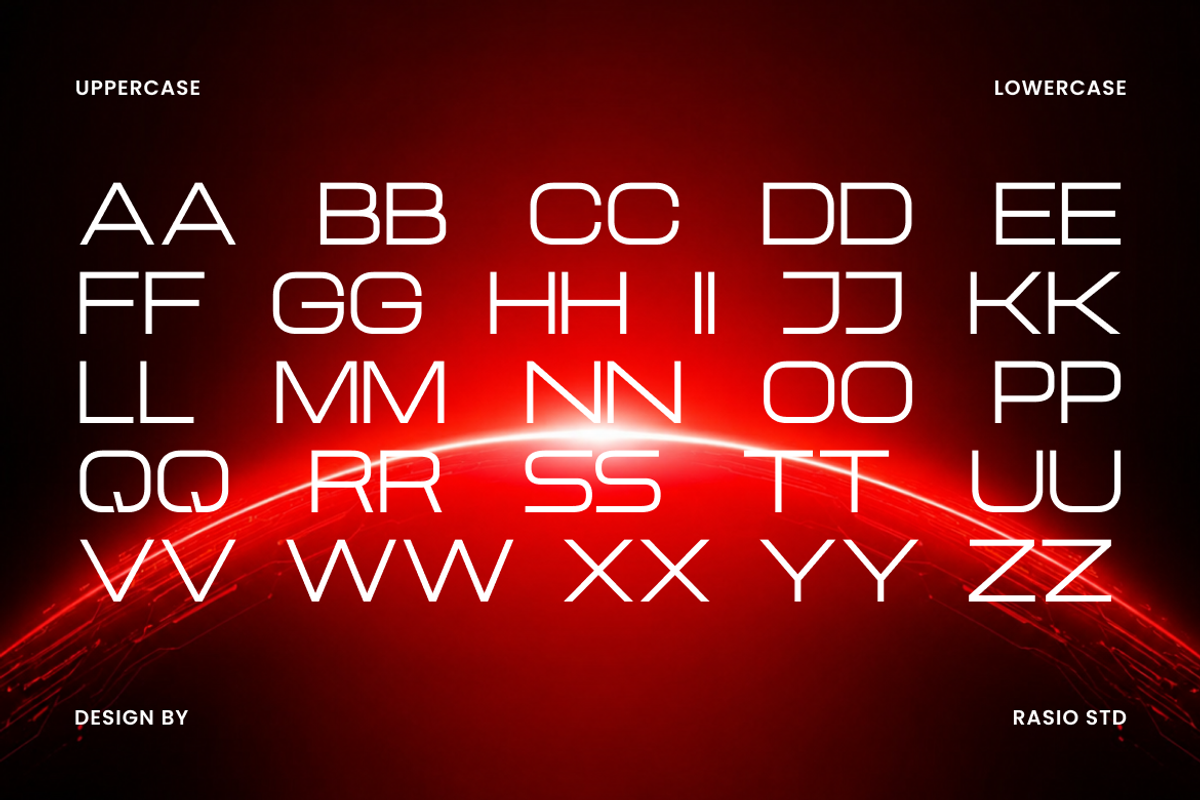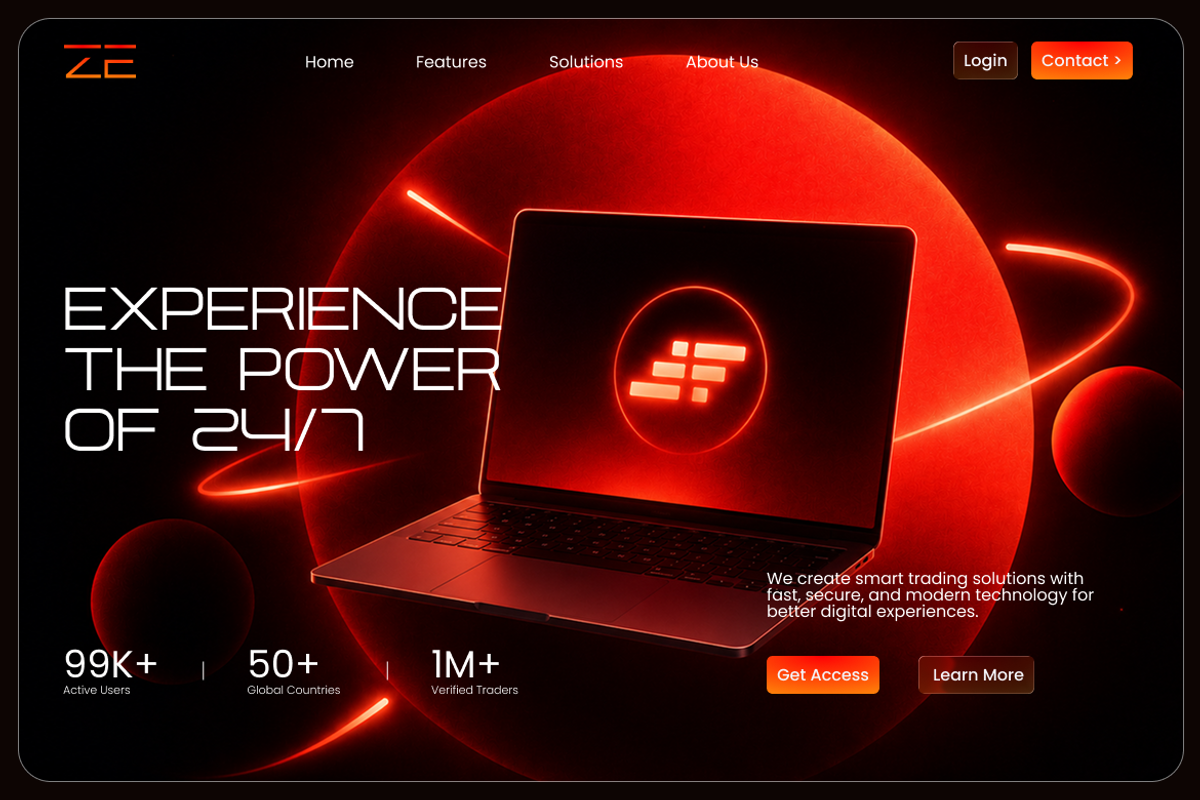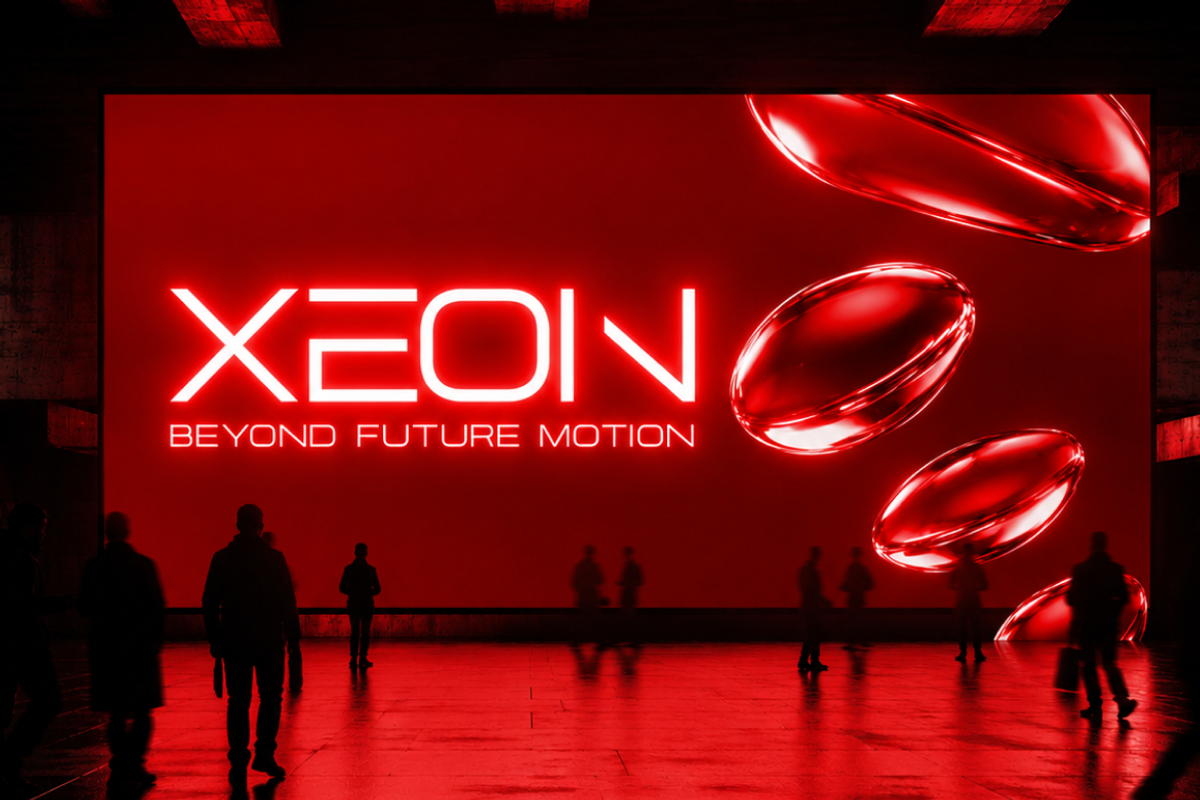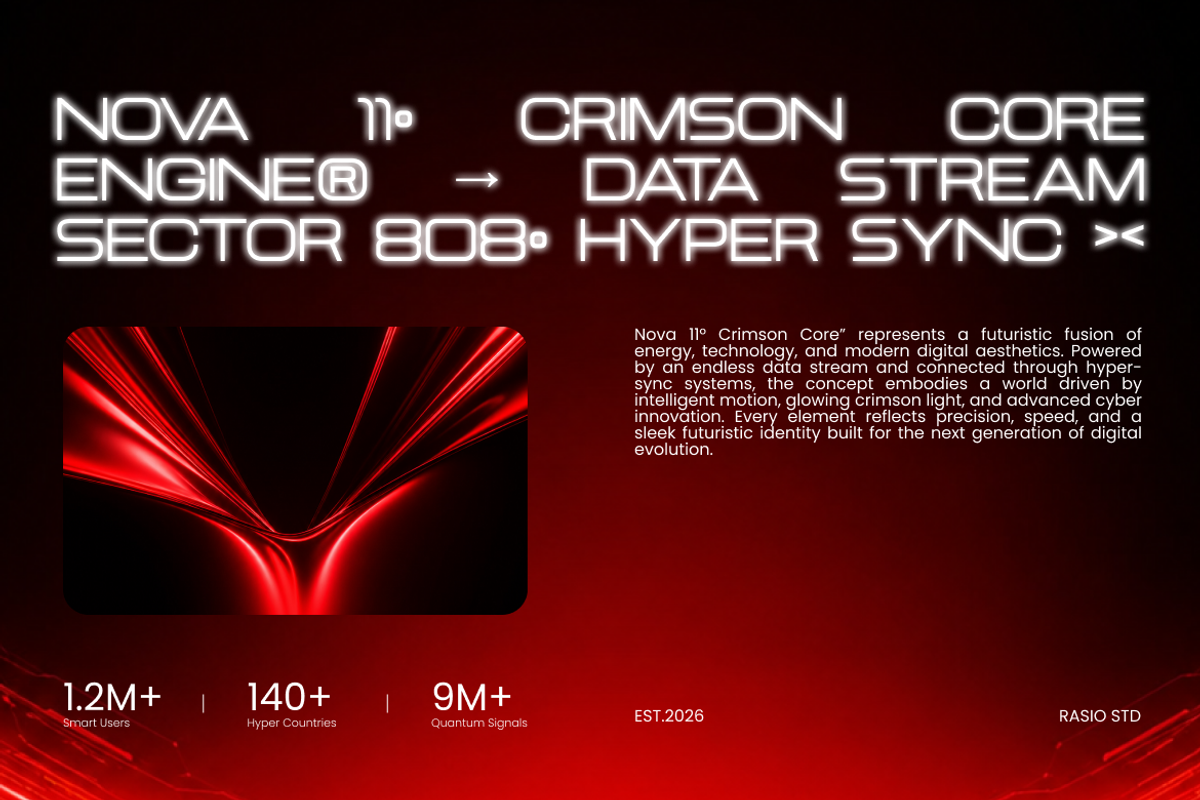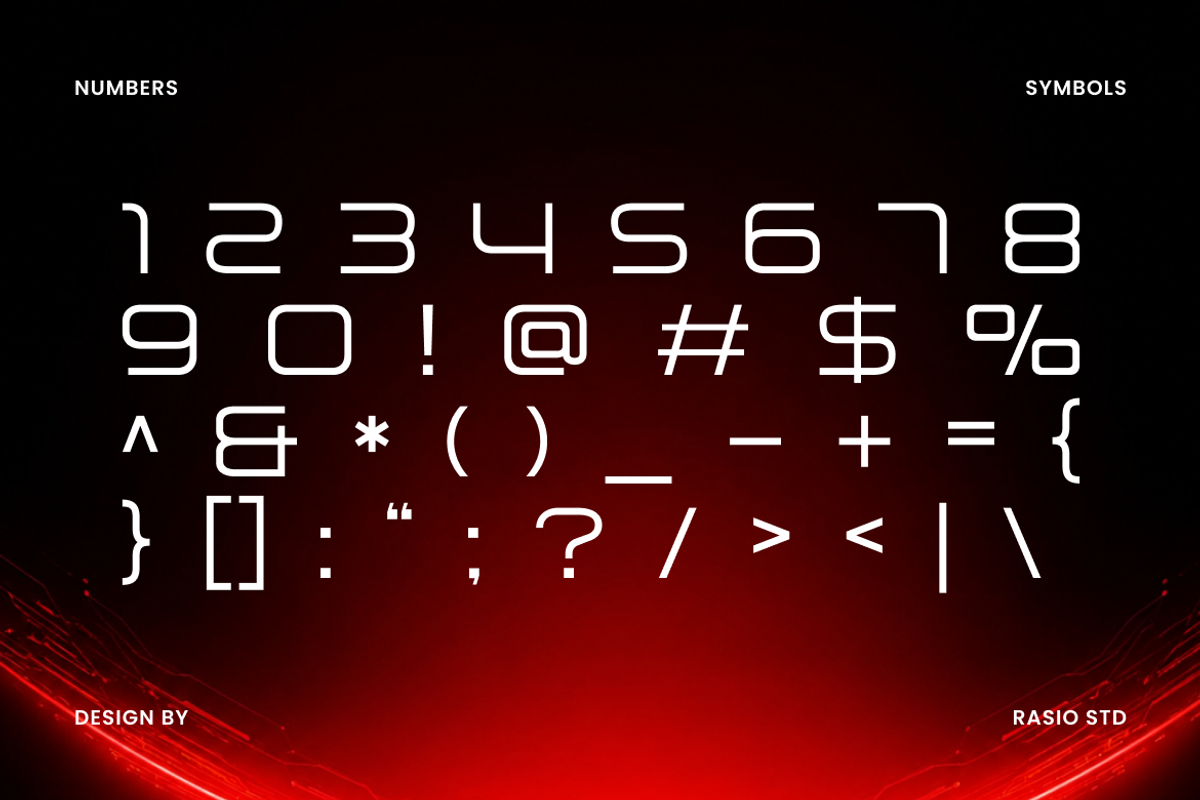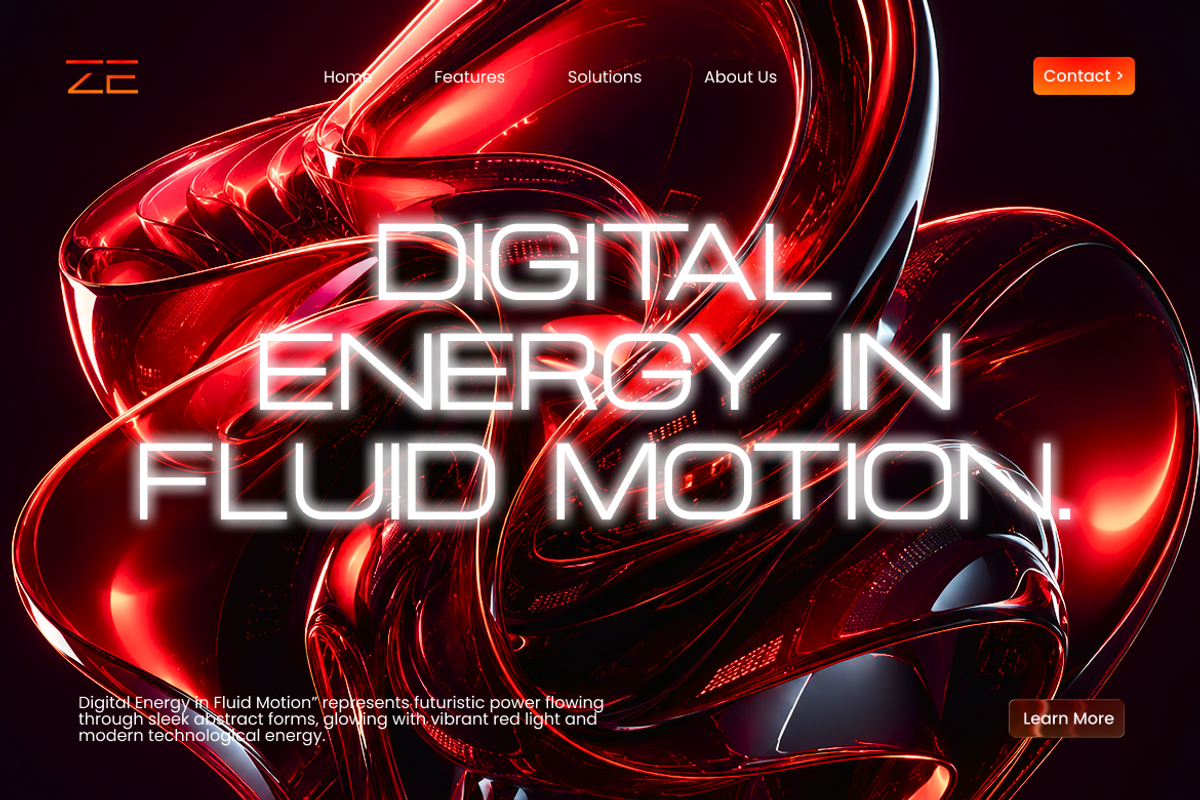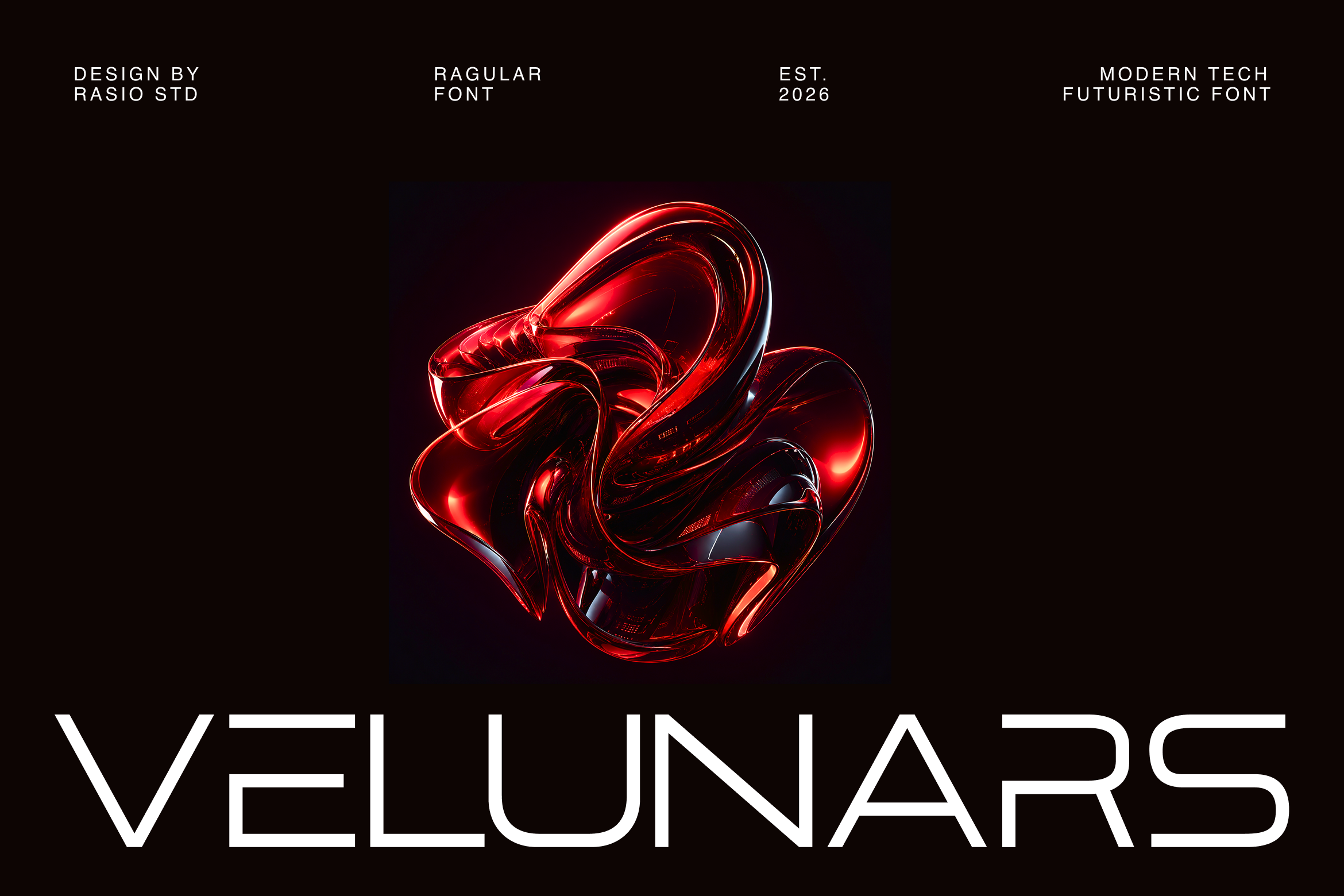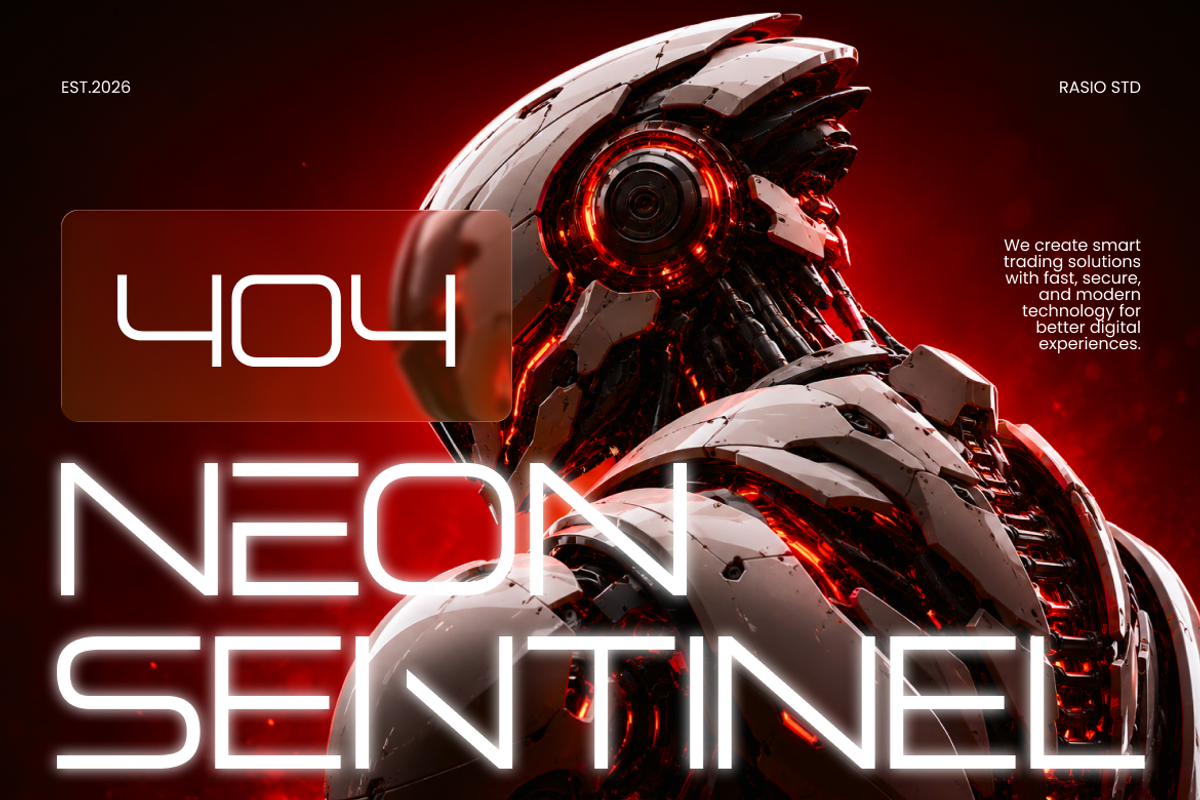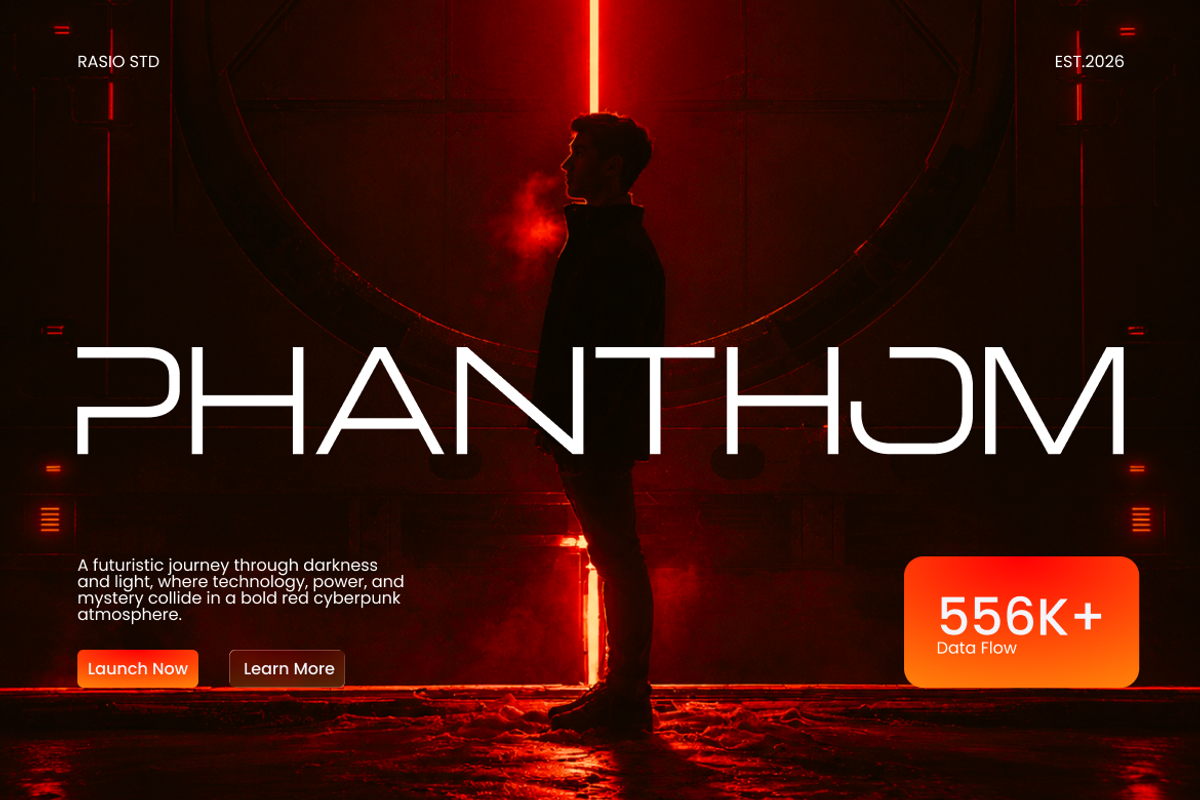
Velunars Modern Tech Futuristic Font
Velunars is a modern futuristic display font with sleek geometric construction, thin line proportions, and clean cyber-inspired curves. The typeface delivers a high-tech visual identity with minimalist sci-fi aesthetics, making it stand out in futuristic branding, gaming visuals, digital interfaces, and technology-inspired layouts. This font package includes uppercase and lowercase characters, numerals, punctuation and stylistic alternates for flexible design exploration.
Relevance & Use Cases is highly relevant for futuristic and technology-focused design projects that require a sleek, modern, and cyber-inspired visual tone. The font works perfectly for gaming branding, esports graphics, tech startup identities, AI presentations, sci-fi movie titles, digital product interfaces, futuristic posters, social media campaigns, website headers, and innovative editorial layouts.
Futuristic geometric construction with sleek extended proportions
Thin monoline strokes combined with sharp angular cuts for a high-tech appearance
Rounded corners balanced with precise sci-fi detailing for modern readability
Wide spacing and clean horizontal alignment for strong digital aesthetics
Minimalist cyberpunk-inspired structure designed for futuristic display compositions
Futuristic branding systems for technology startups and digital innovation projects
UI/UX interfaces, gaming dashboards, and cyberpunk-inspired applications
Sci-fi movie titles, esports branding, and futuristic event posters
Tech product packaging and electronic device promotional materials
Social media campaigns, streaming overlays, and modern digital advertising
Screen-optimized kerning for responsive web design
Supports numerals, punctuation, and extensive symbol set